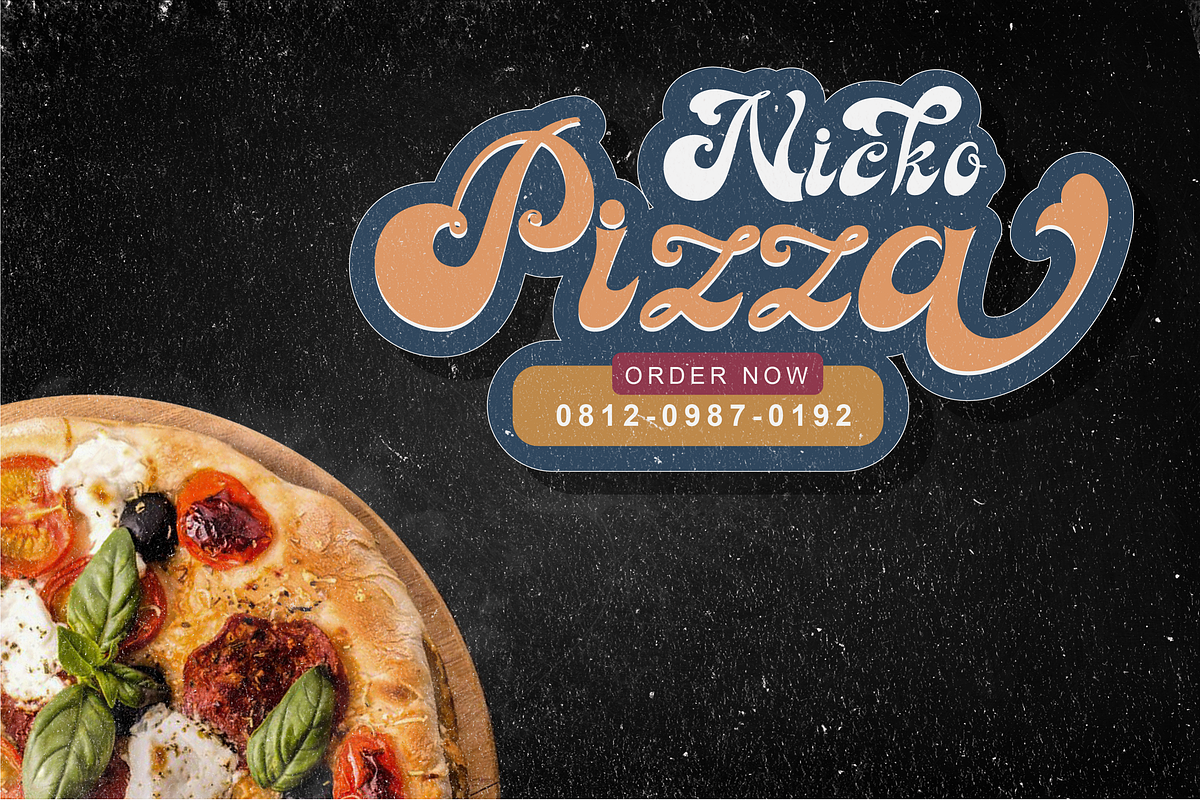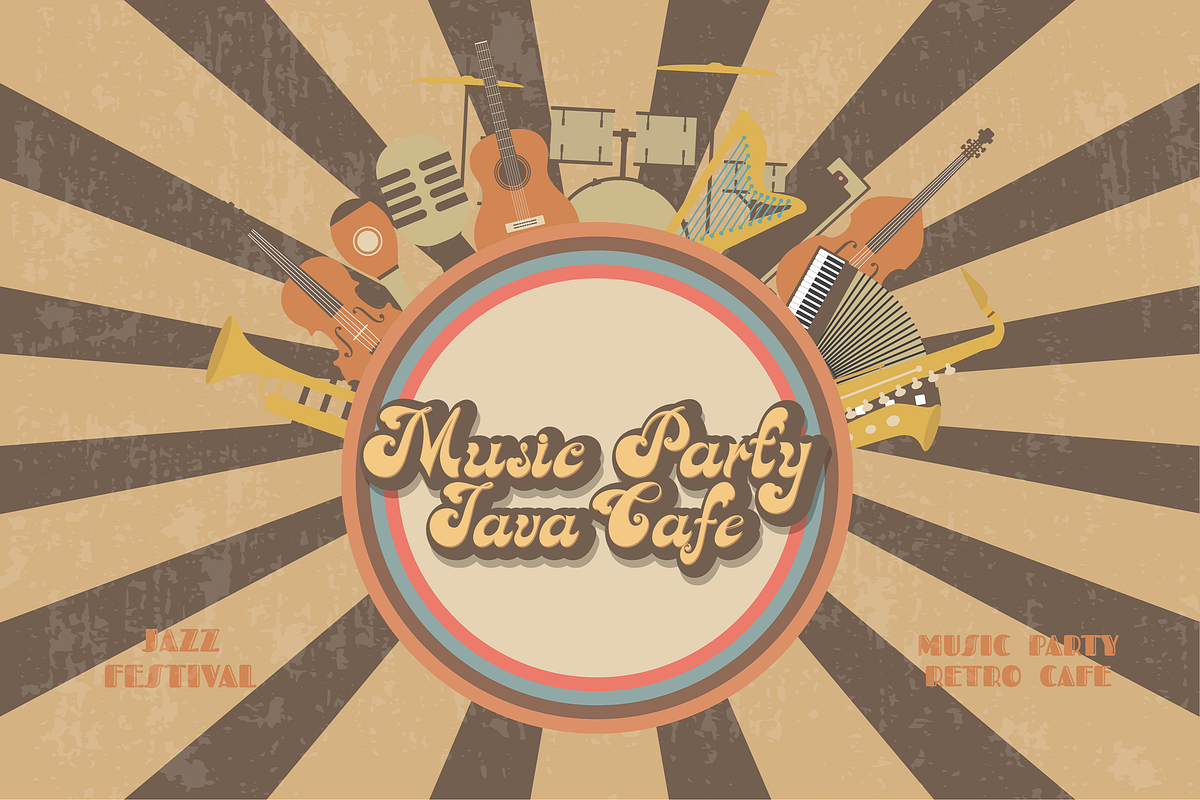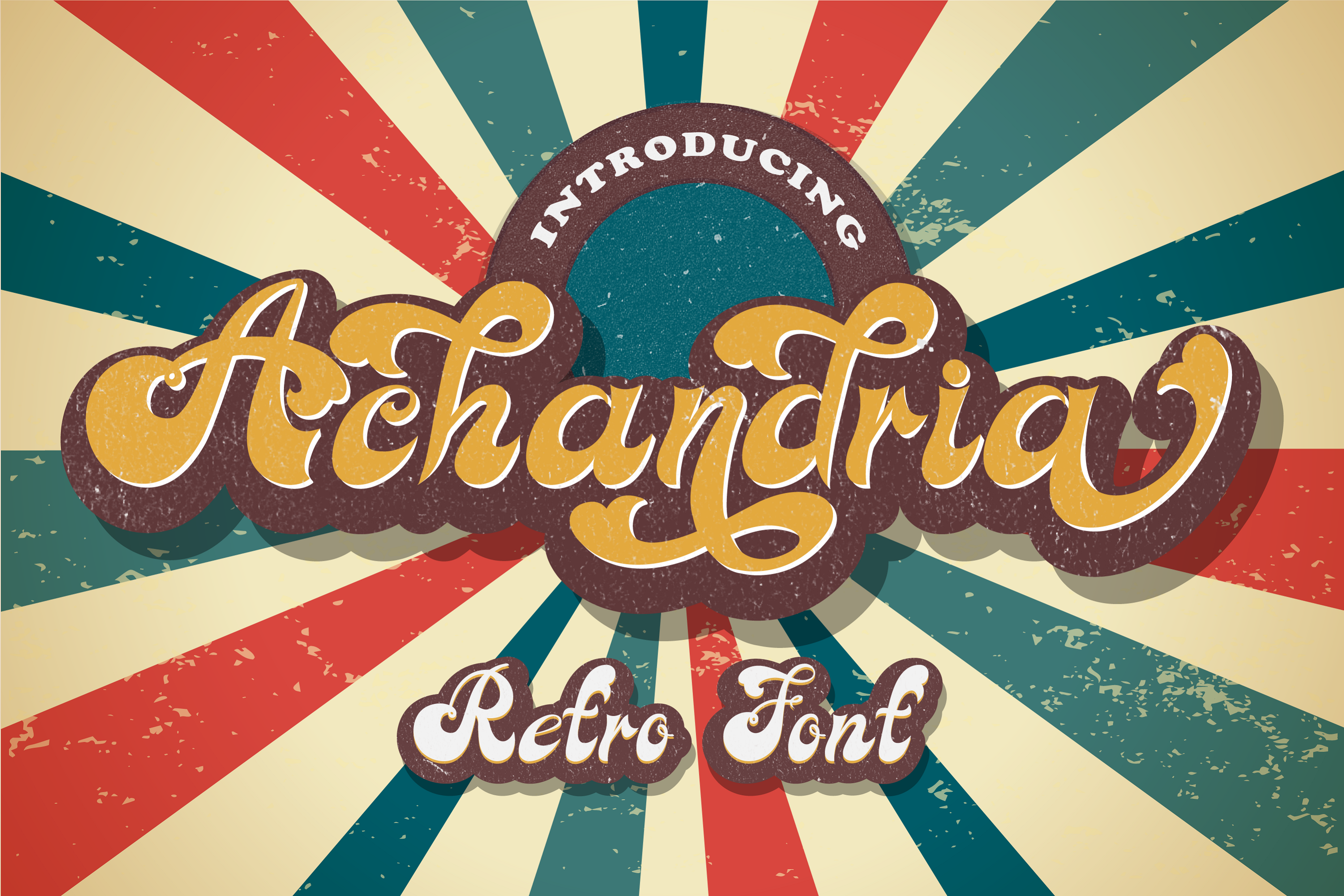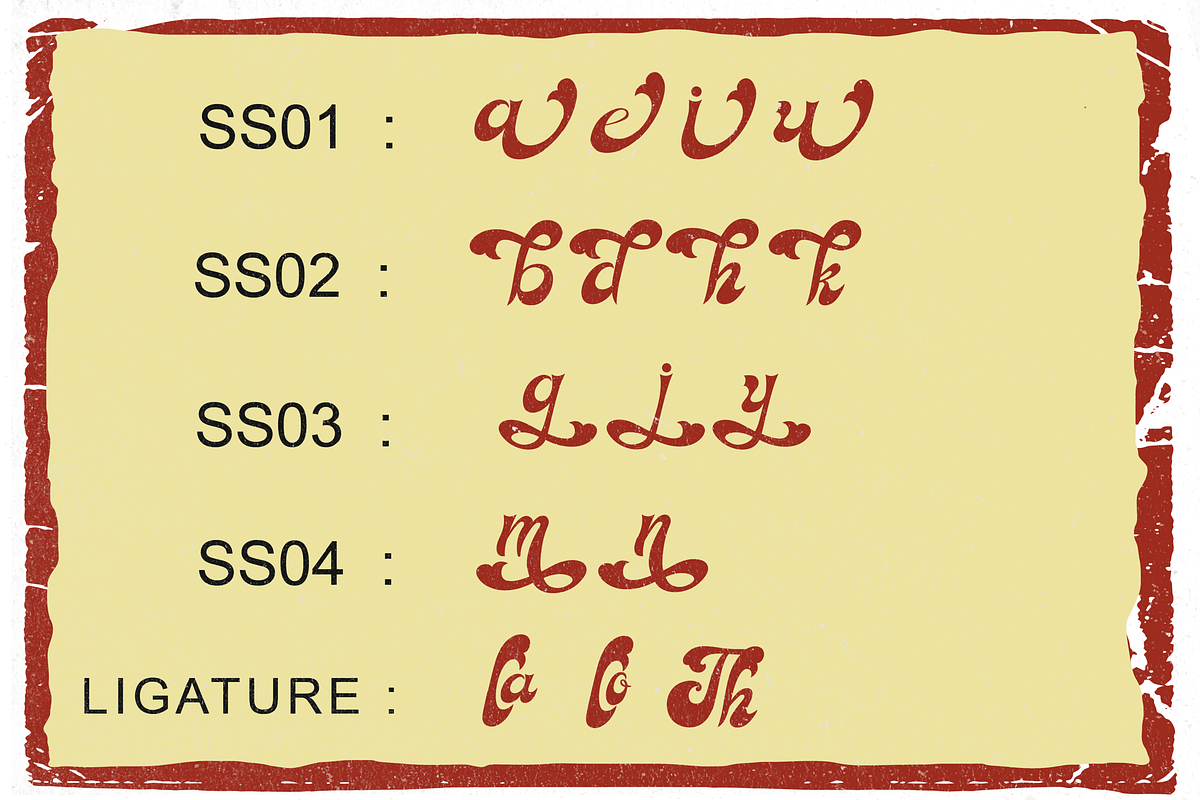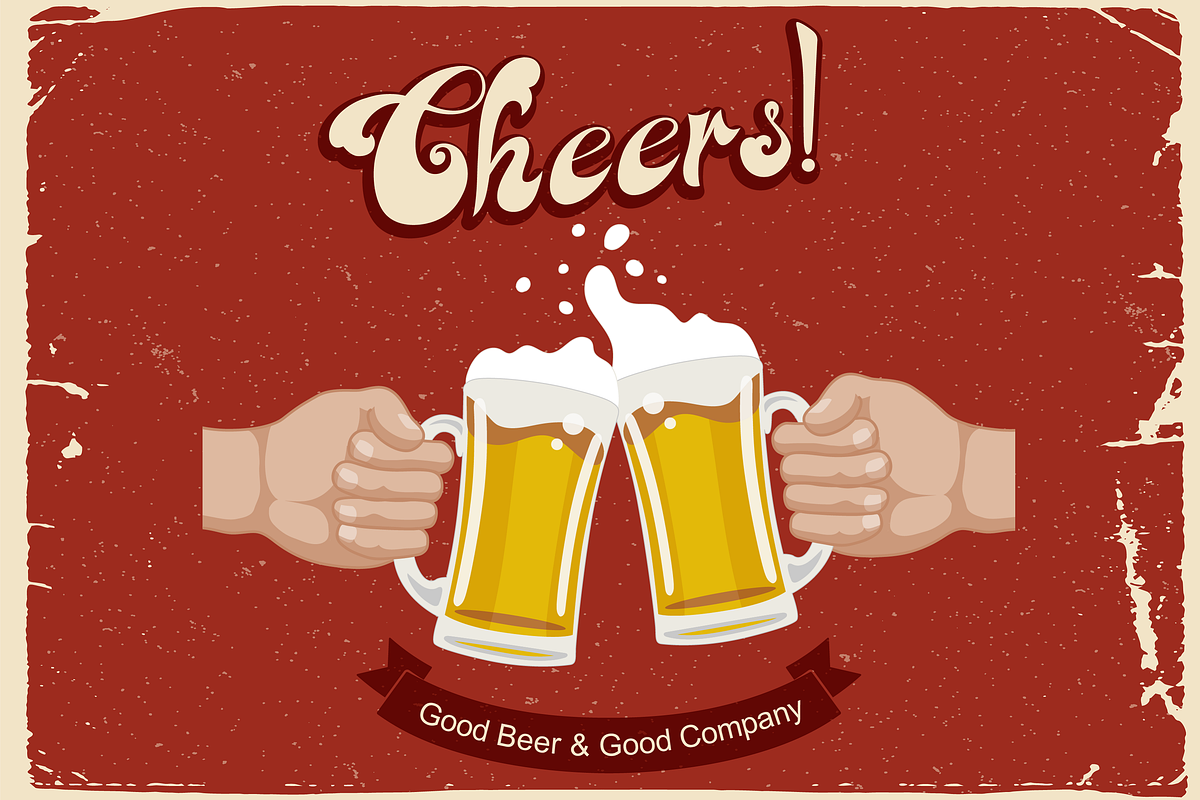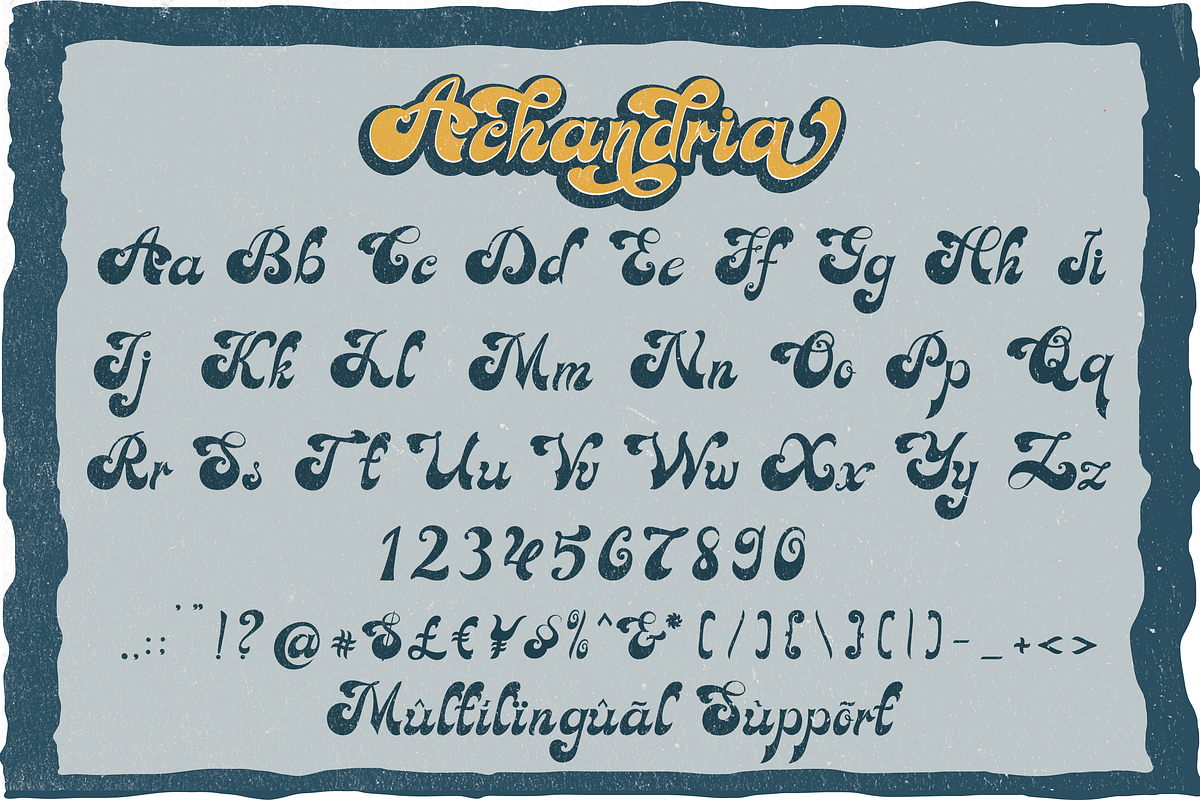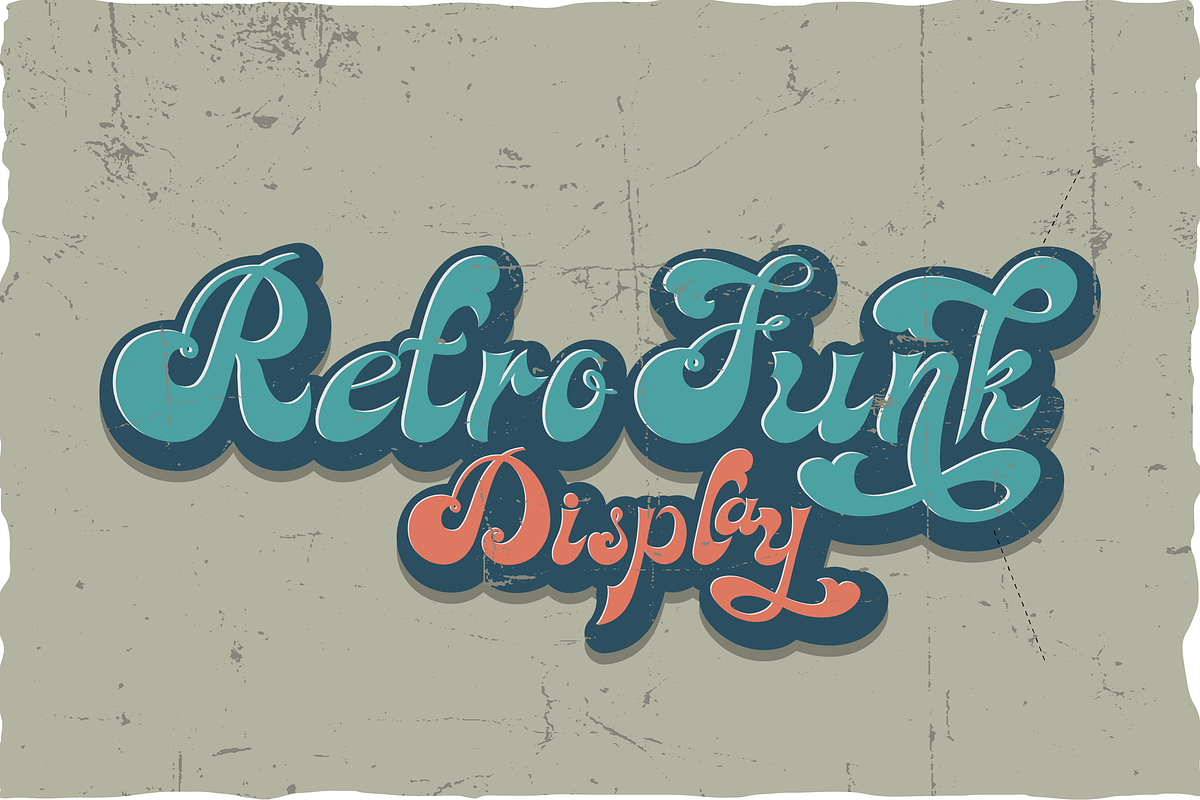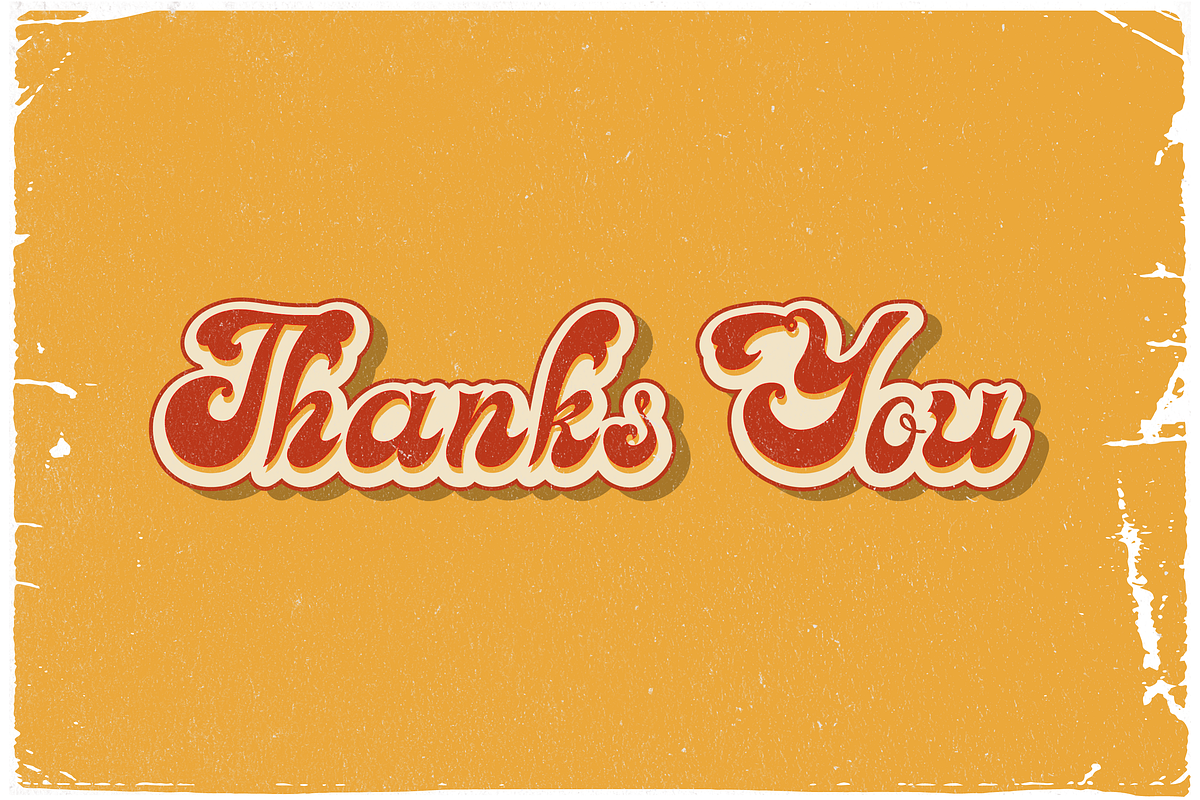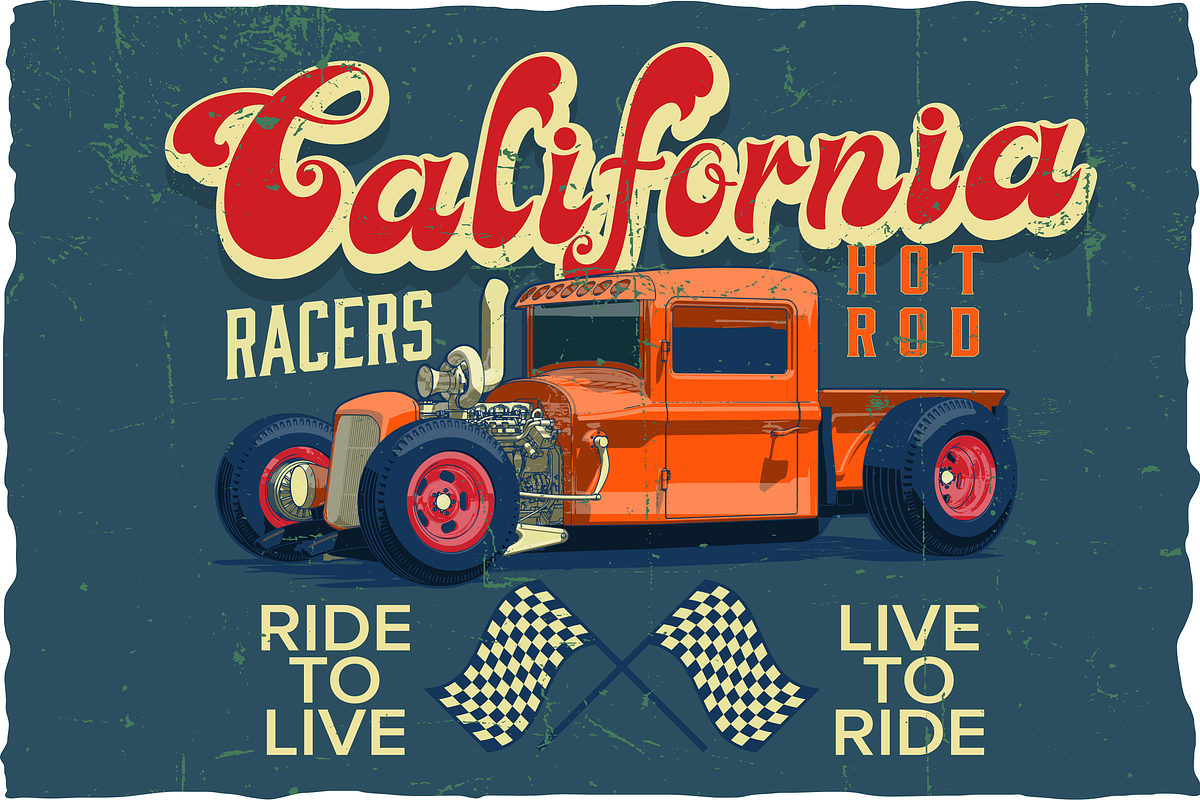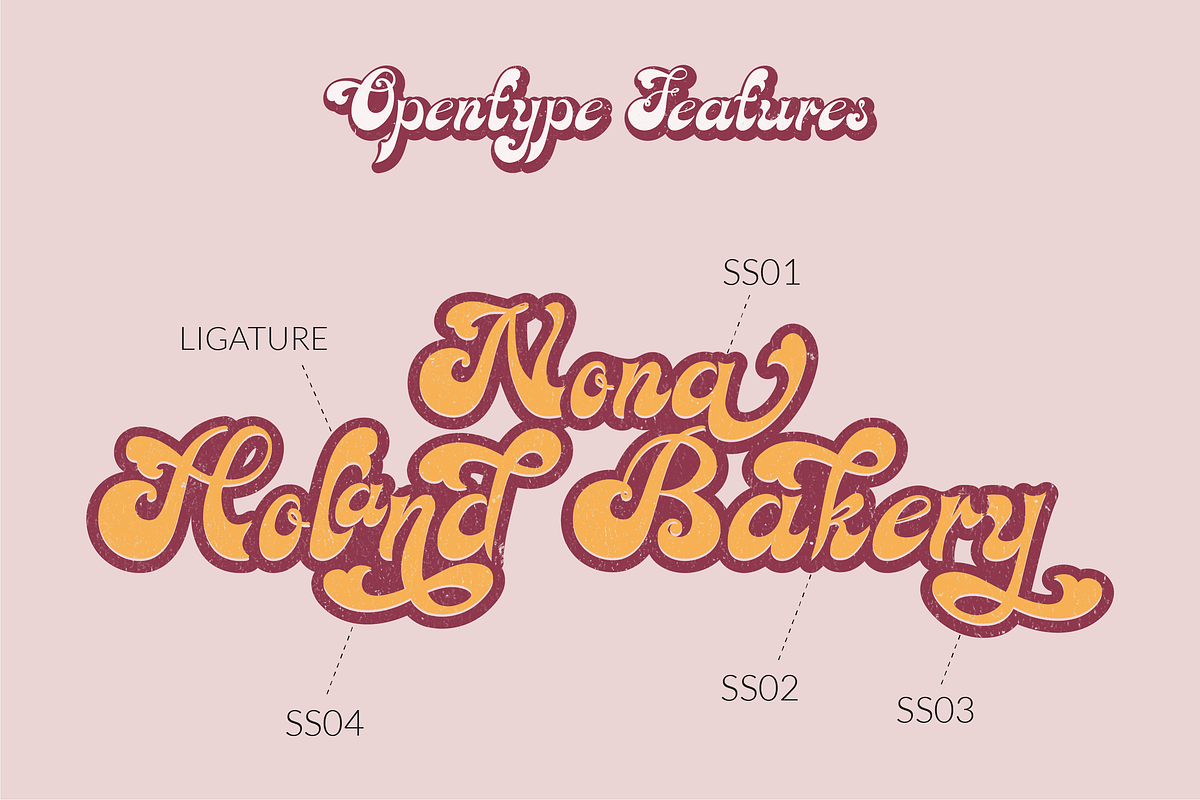
Achandria a modern retro font
Introducing Achandria a Retro Font Inspired from retro typography from 80's combine with bold typography style. Come with open type feature with a lot of alternates and end swash, its help you to make great lettering.
Achandria best uses for Logotype, heading,cover, poster, logos, quotes, product packaging, header, merchandise, social media & greeting cards and many more. This font is also support multi language.
- Ligature and Stylish Set
- Fonts include multilingual support